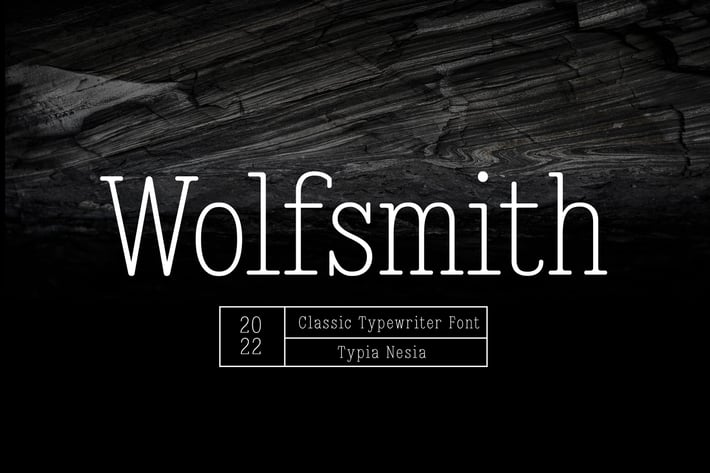
Wolfsmith - Classic Vintage Typewriter Serif Font
Wolfsmith Typewriter Font is perfect for your up coming projects. Such as classic logo and branding, classic editorial design, magazine, fashion promotional, wedding planner branding, stationery design, blog design, advertising design, wedding card invitation, art quote, home decor, book / novel cover title, special events and any more.